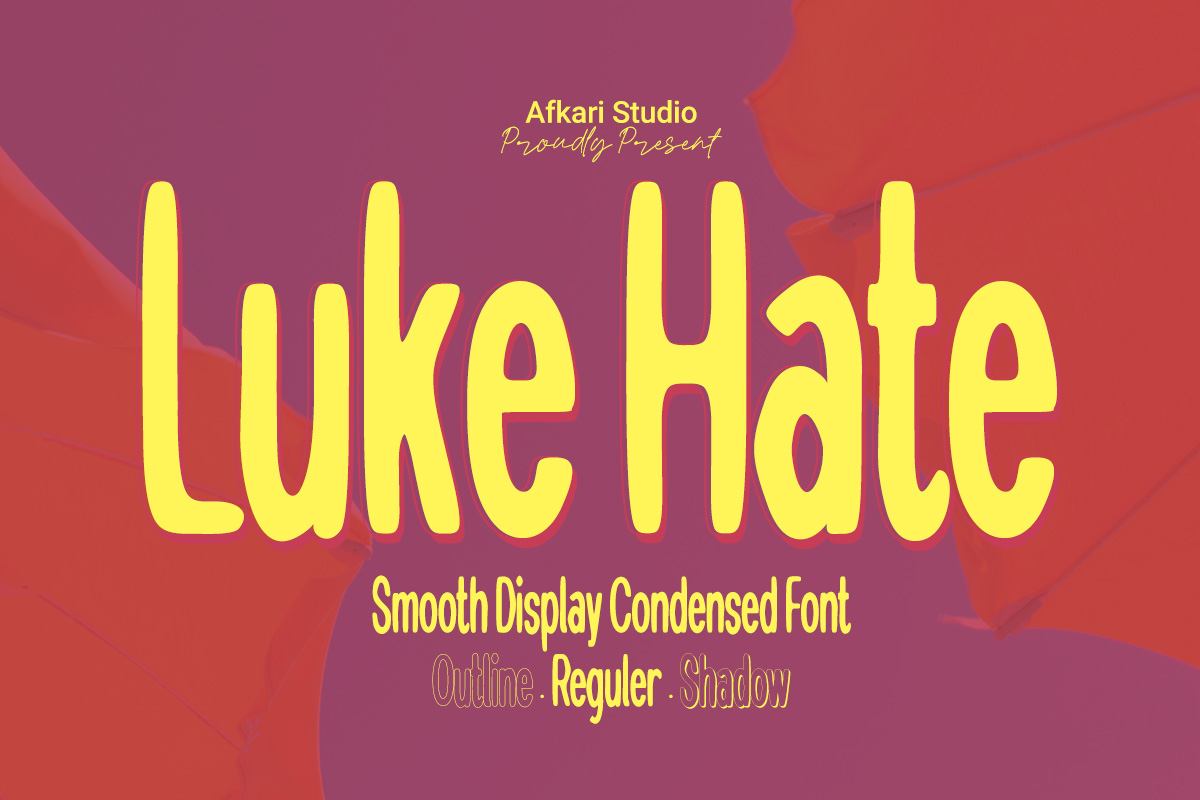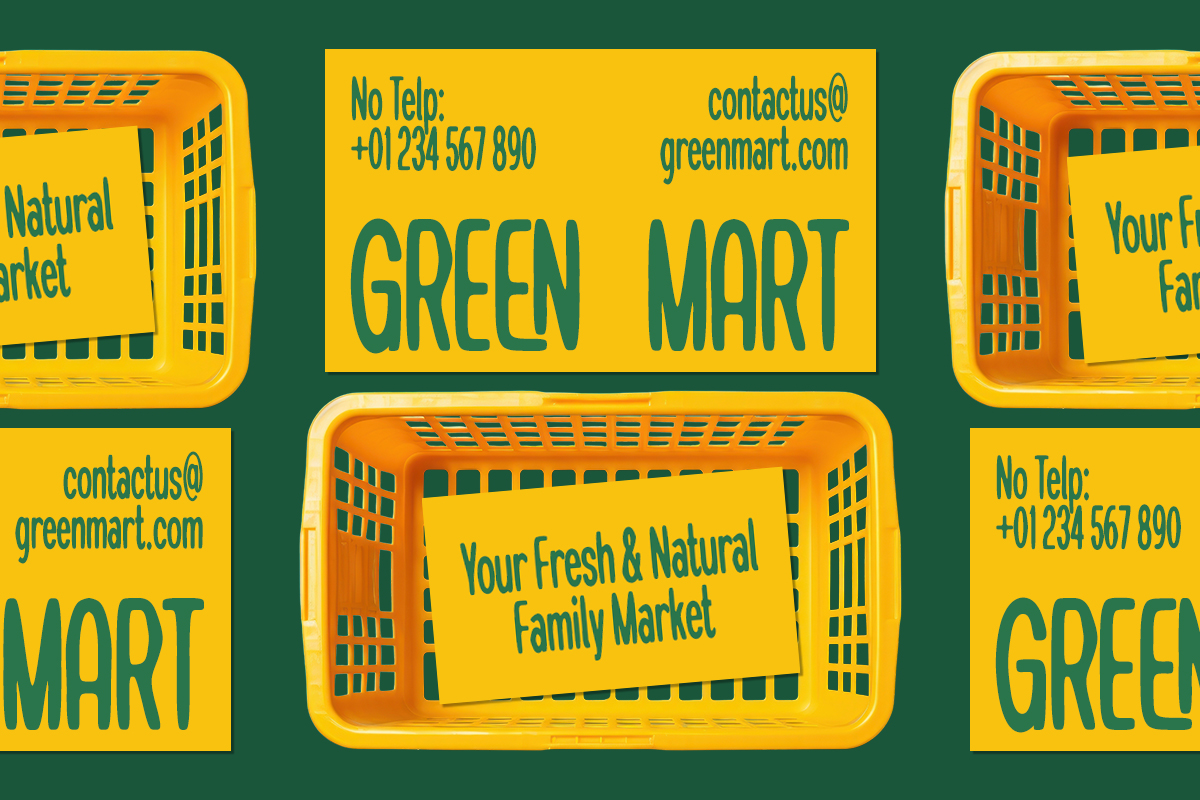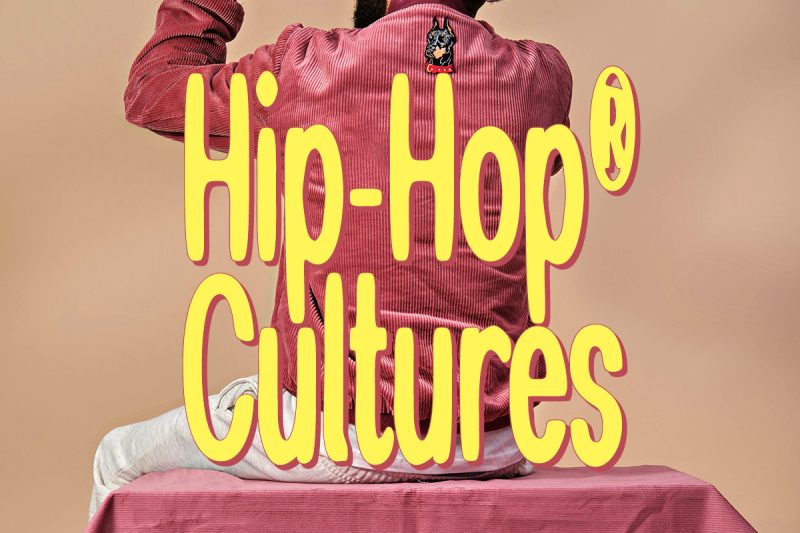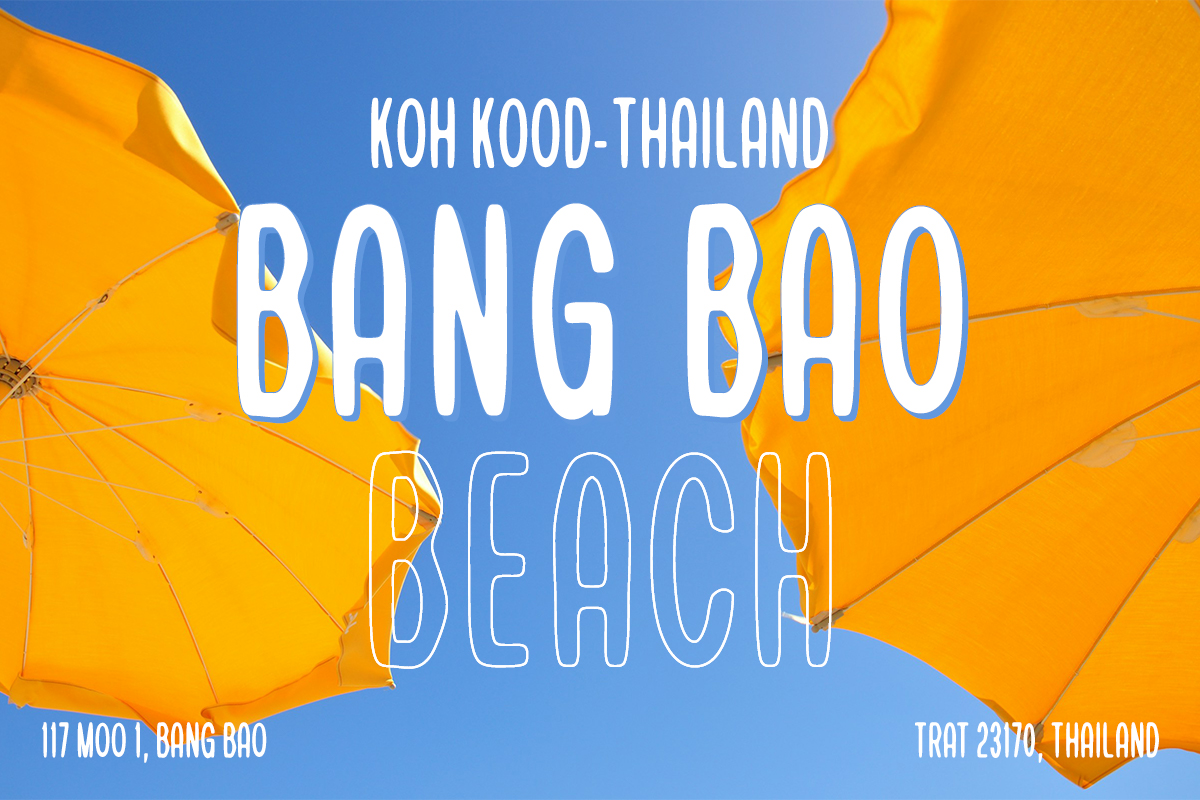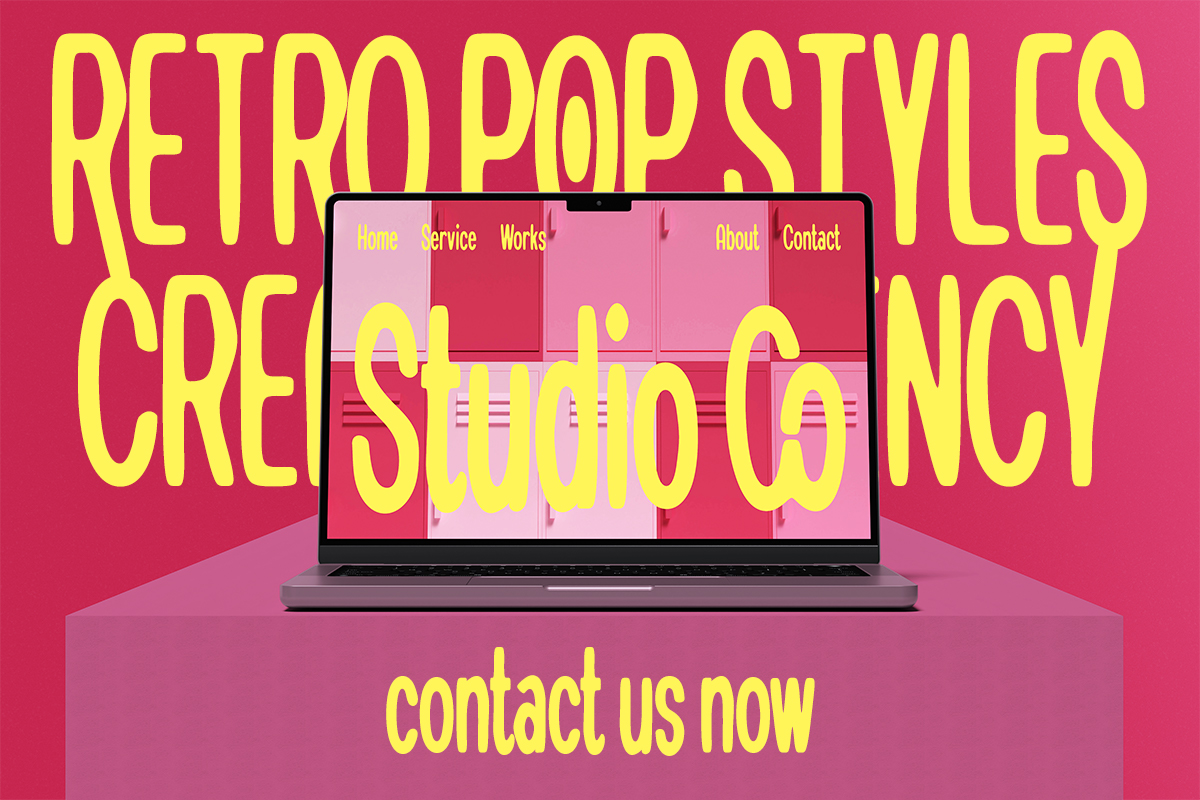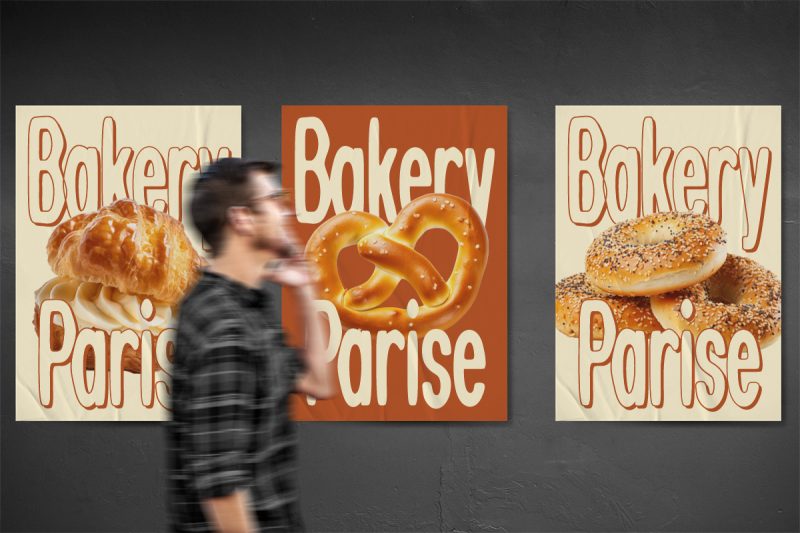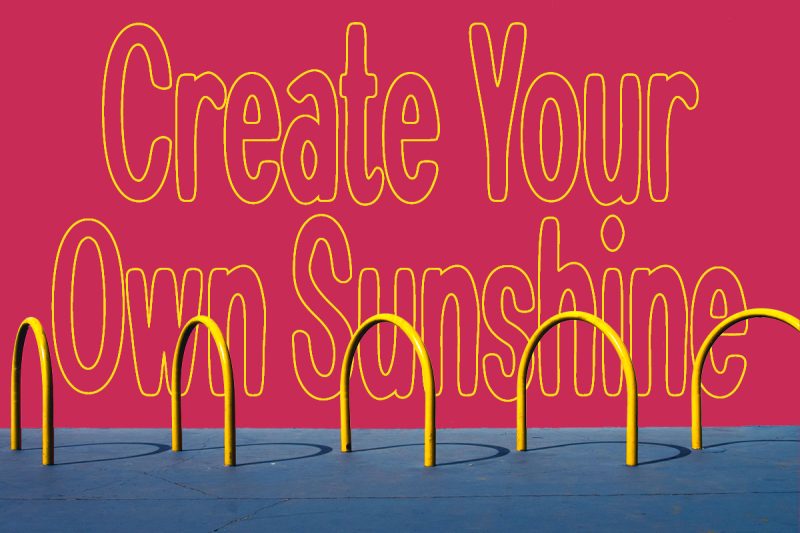
Luke Hate - Smooth Display Condensed Font
Luke Hate – Smooth Display Condensed Font is a bold, stylish, and modern typeface designed to stand out in any creative project. With its clean lines, narrow form, and smooth edges, Luke Hate brings a sleek and expressive vibe that’s perfect for attention-grabbing headlines, branding, music covers, and more.
What makes Luke Hate extra versatile is its 3 unique styles:
1. Regular – clean and solid, perfect for bold typographic layouts
2. Outline – for a cool, minimal, and contemporary aesthetic
3. Shadow – adds depth and retro flair with layered dimension
Features;
• Uppercase, Lowercase, Number, and Punctuation
• Special Alternates and ligatures
• Mültîlíñgúãl Sùppört for; ä ö ü Ä Ö Ü ß ¿ ¡
Whether you’re working on a modern brand, poster, or editorial piece, Luke Hate adds personality without sacrificing readability. It’s bold, smooth, and made to leave an impression.